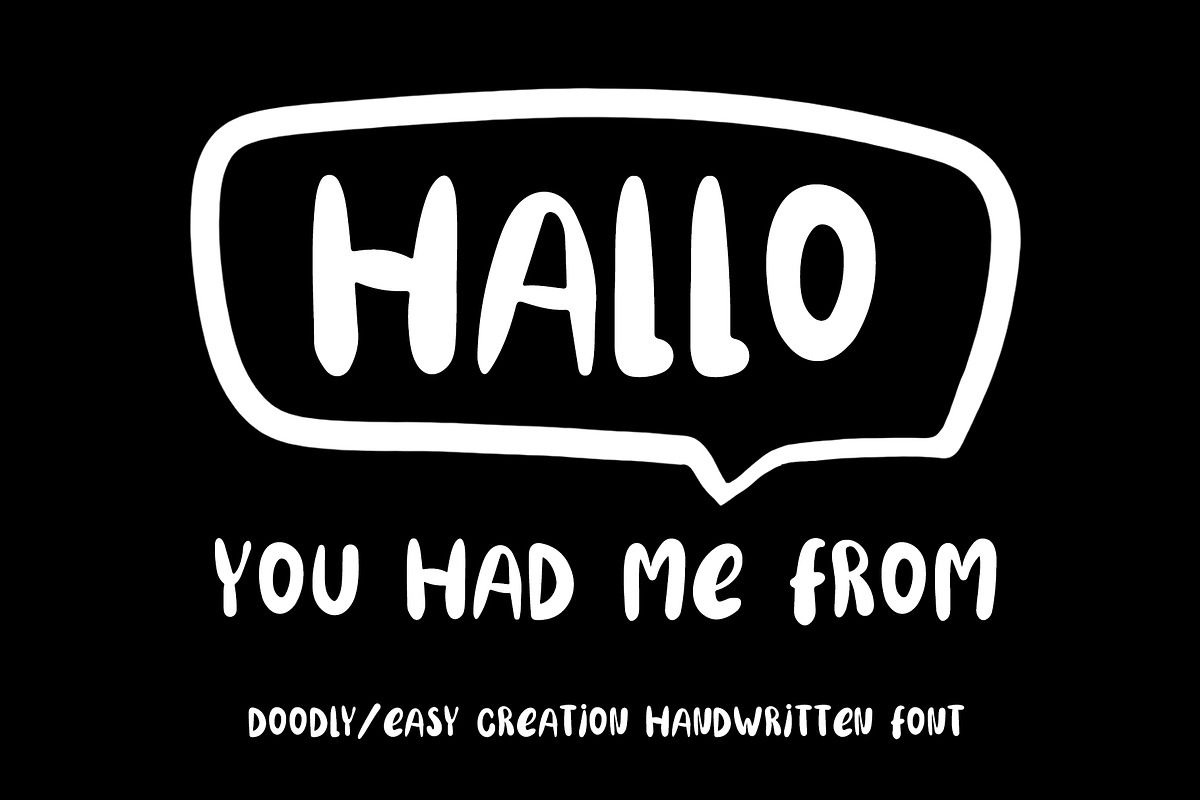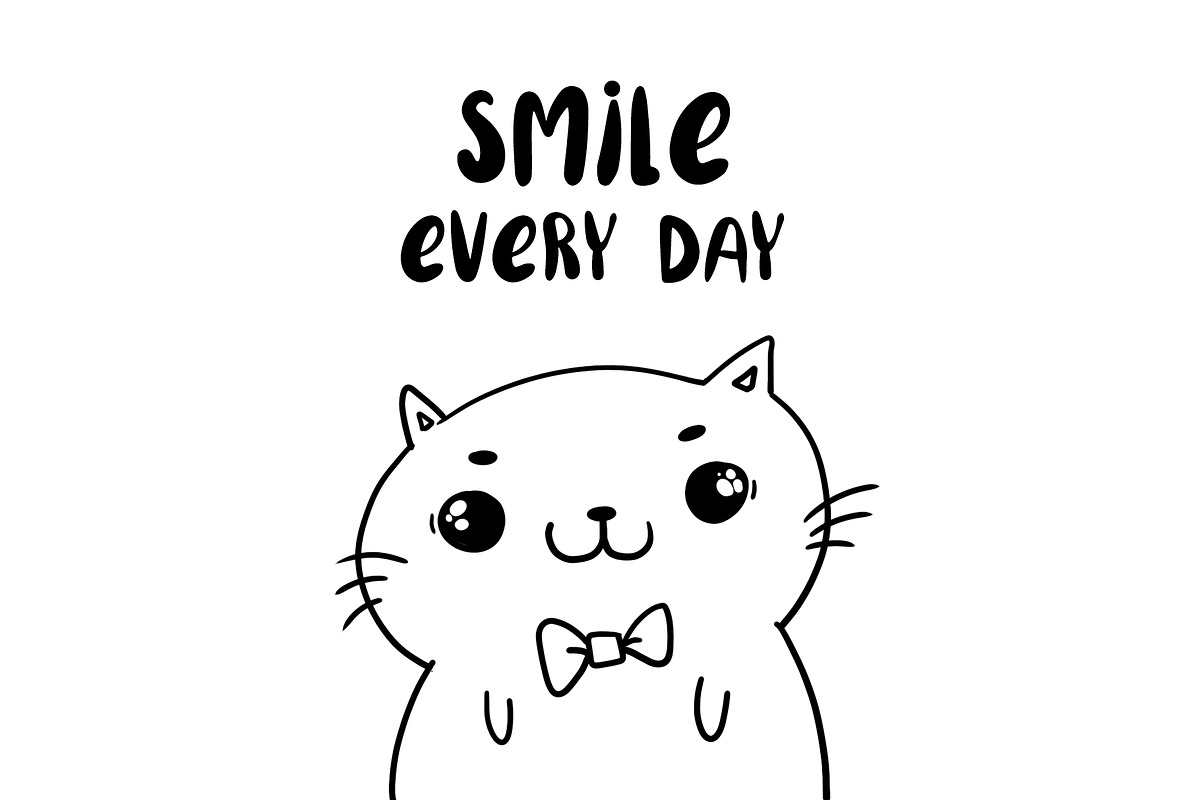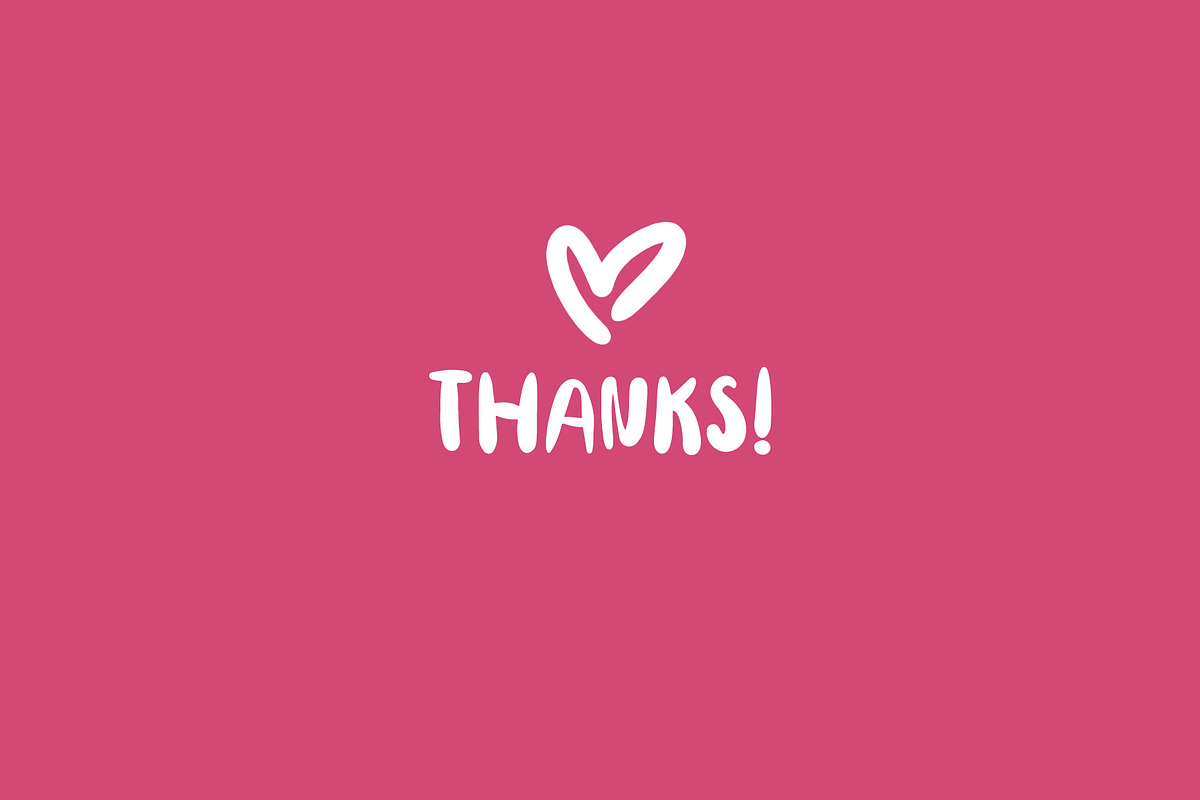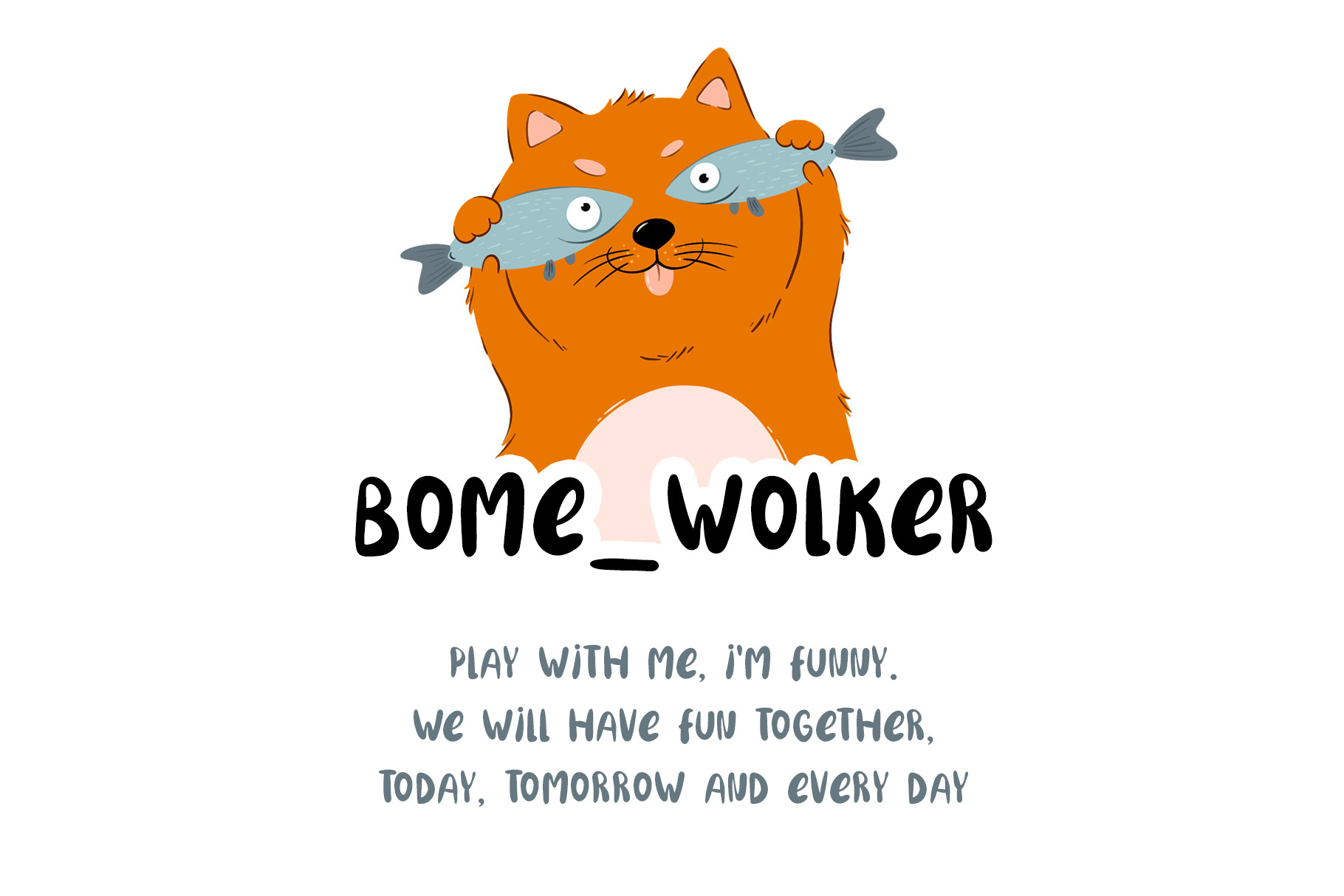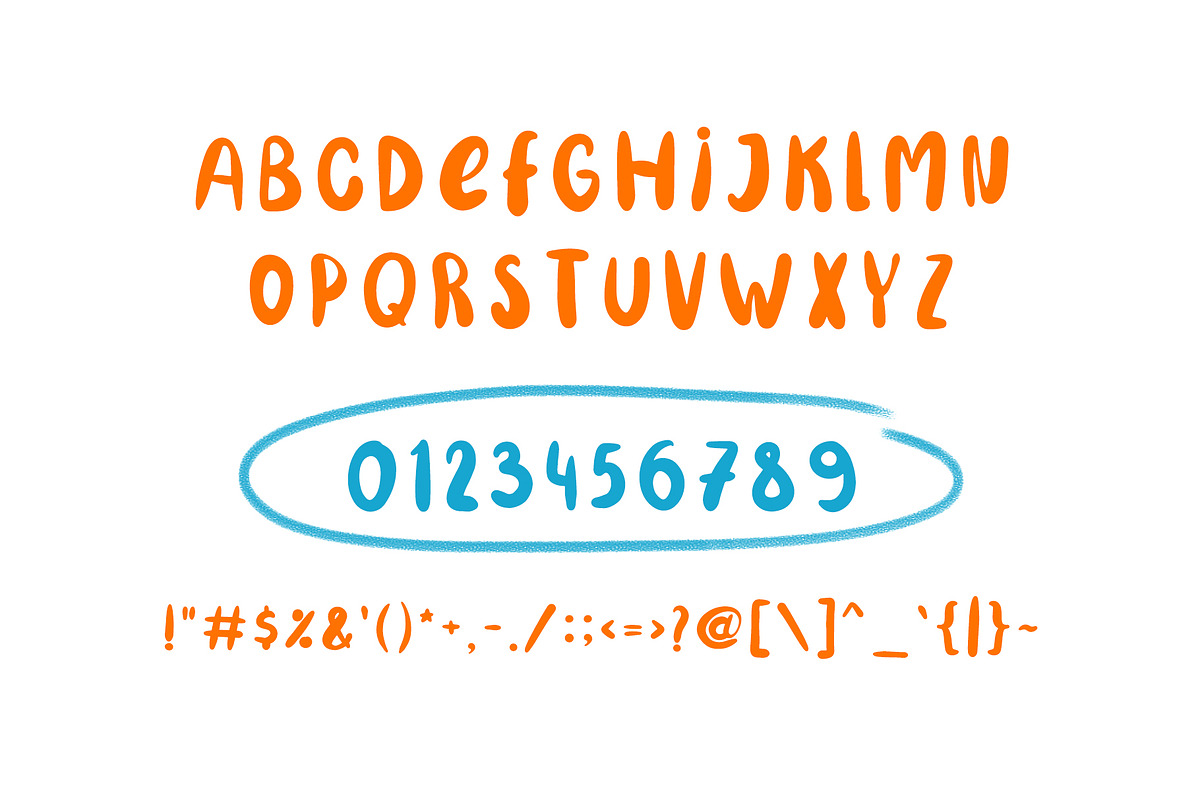
Bome_Wolker. Funny font
Welcome this funny font. Ideal for greeting cards, stickers! It is charming and will help you to give your project a truly unique look.